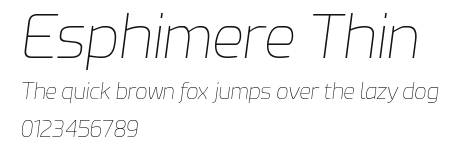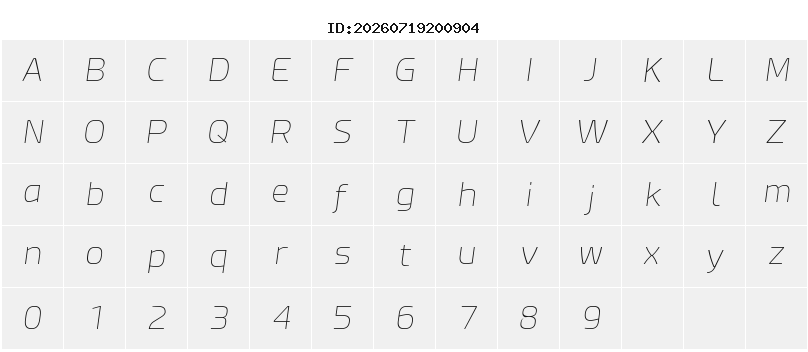
• Font Name: Esphimere Thin
• Full Font Name: Esphimere Thin Italic
• Designer: Dichi
About Esphimere Thin.otf
Esphimere Thin.otf is a modern, elegant sans-serif font designed for ultimate readability and visual harmony. Perfect for branding, headlines, web design, and print materials.